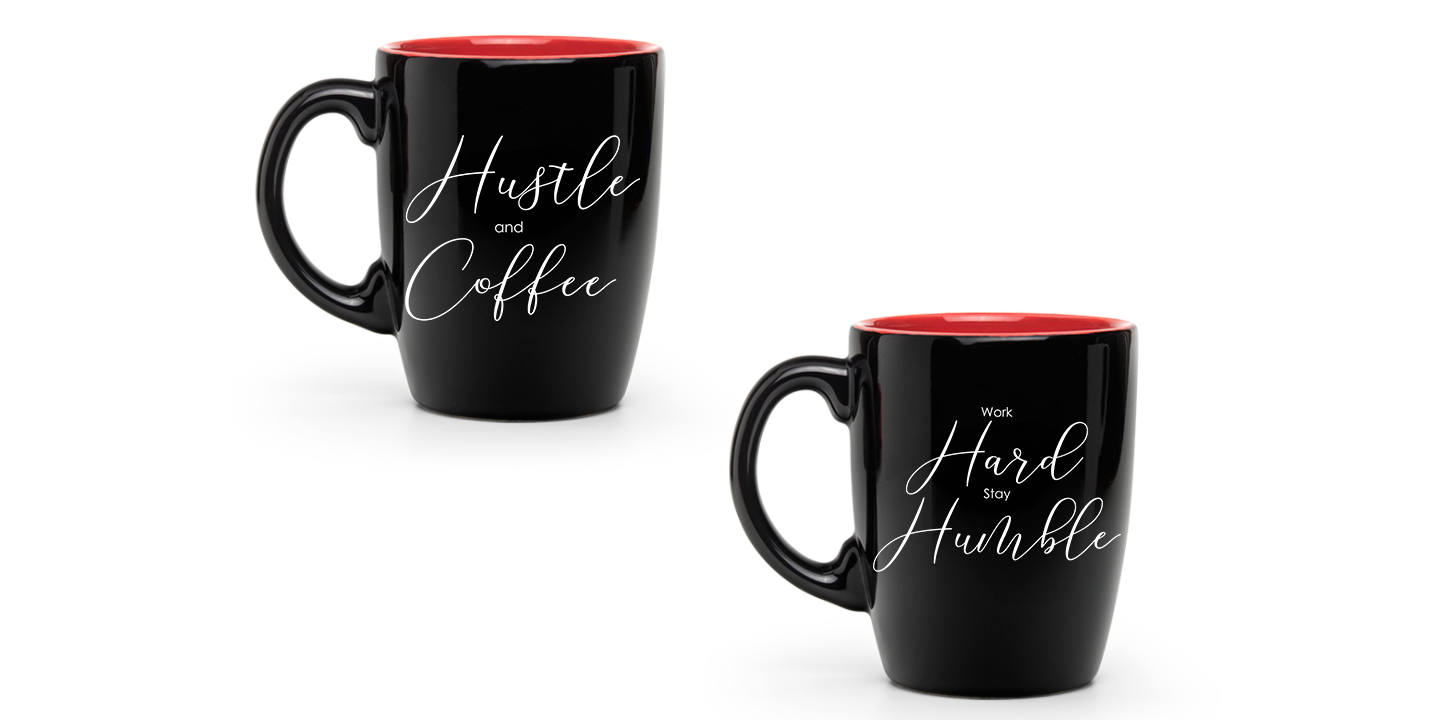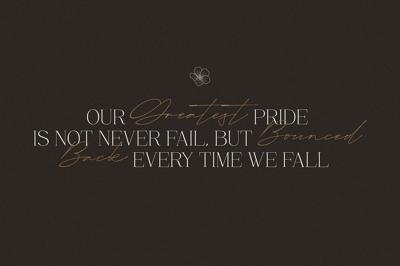
Kamelia Script Font is perfect for elegant floral branding, sophisticated botanical designs, graceful garden center communications, refined beauty salon signage, delicate perfume packaging, romantic flower shop materials, enchanting spa treatments, and blossoming feminine brand expressions.
What makes Kamelia Script Font exciting is its blooming elegance and delicate floral beauty that captures the graceful essence of nature's most exquisite flowers in full bloom. This enchanting typeface combines organic script flow with botanical sophistication, creating letters that dance like petals in a gentle breeze and radiate natural femininity. The font's flower-inspired character details and botanical aesthetic make it an ideal choice for brands seeking to communicate natural beauty, elegance, and blooming sophistication.
Kamelia Script Font family includes Regular, Bold, Light, Flourish, Botanical, and Ornate variations, plus decorative floral elements and garden ornaments. Each style maintains the font's blooming character while providing comprehensive flexibility for creating elegant botanical design systems and natural brand communications that celebrate floral beauty and organic elegance.
Botanical design specialists consistently choose Kamelia Script Font Free Download for projects requiring floral sophistication and natural visual impact. This remarkable typeface has gained recognition among beauty brands, floral businesses, and natural lifestyle organizations worldwide. The font's ability to convey elegance and botanical beauty makes it perfect for brands operating in beauty, floral, and natural lifestyle markets.
The design philosophy behind Kamelia Script Font emphasizes natural elegance and botanical sophistication. Its letterforms feature flowing curves and carefully balanced proportions that reflect the organic beauty and delicate grace found in nature's most beautiful flowers and botanical gardens. The font's distinctive elements include floral flourishes and botanical character variations that create immediate emotional connection with audiences seeking natural beauty and elegant experiences.
Creative agencies specializing in beauty and botanical branding frequently select Kamelia Script Font for clients requiring elegant communication and natural brand expression. The font's versatility allows seamless integration into comprehensive botanical branding systems, from beauty campaigns to floral business launches, ensuring consistent brand personality across all elegant and natural touchpoints.
The technical execution of Kamelia Script Font demonstrates meticulous attention to botanical typography requirements and natural design standards. Advanced OpenType features include contextual alternates and floral ligatures that enhance creative possibilities for elegant botanical designs. The font's comprehensive character set and floral ornament library make it suitable for international beauty campaigns requiring authentic botanical typography with global natural appeal.